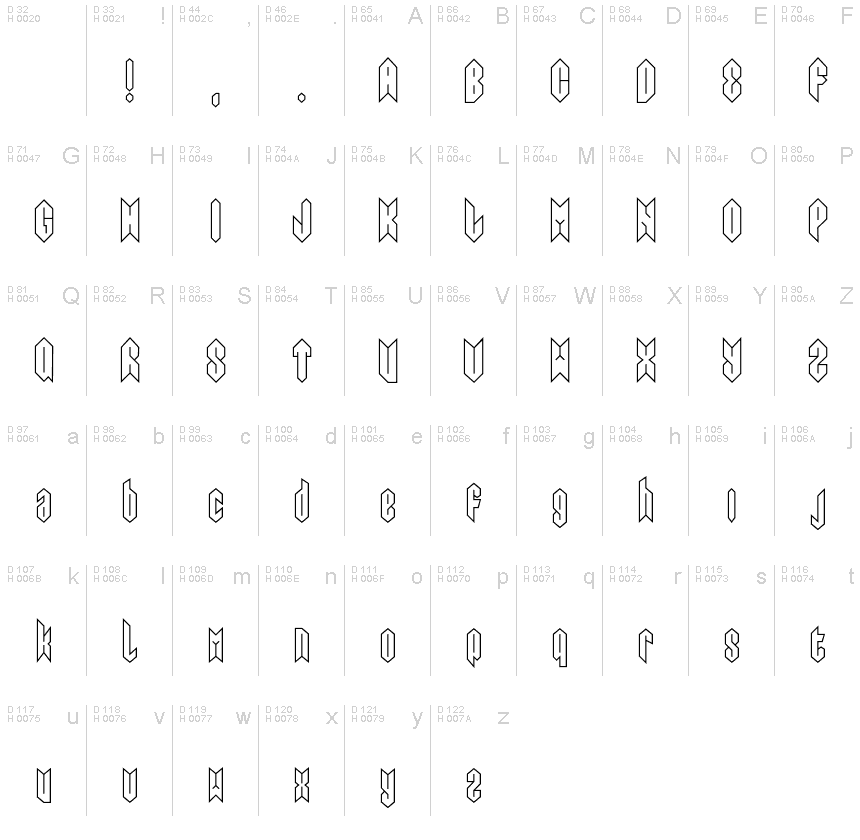
Golden S Regular
Looking for a font that adds a touch of elegance and modernity to your design projects? Look no further than Golden S, the extra-condensed display font from Philatype that's perfect for everything from print materials to digital graphics. With its sleek outlines and gothic-inspired style, this typeface is sure to catch the eye and make a statement. Use it on everything from website headers to billboards, book covers to packaging – the possibilities are endless. So why wait? Try Golden S today and see what this stylish semi-bold font can do for your next project!
A collaboration between gold3nd33d and koleslaw